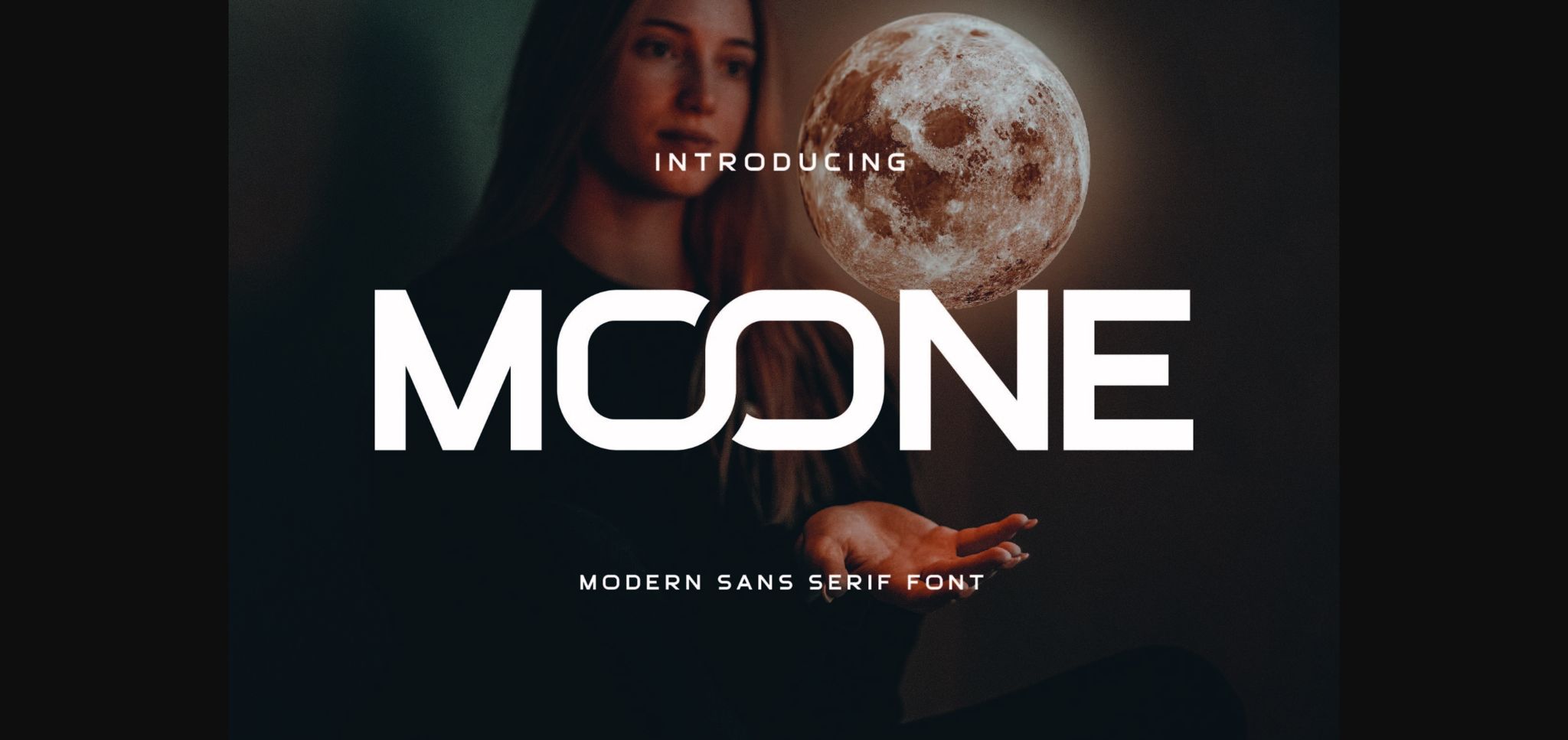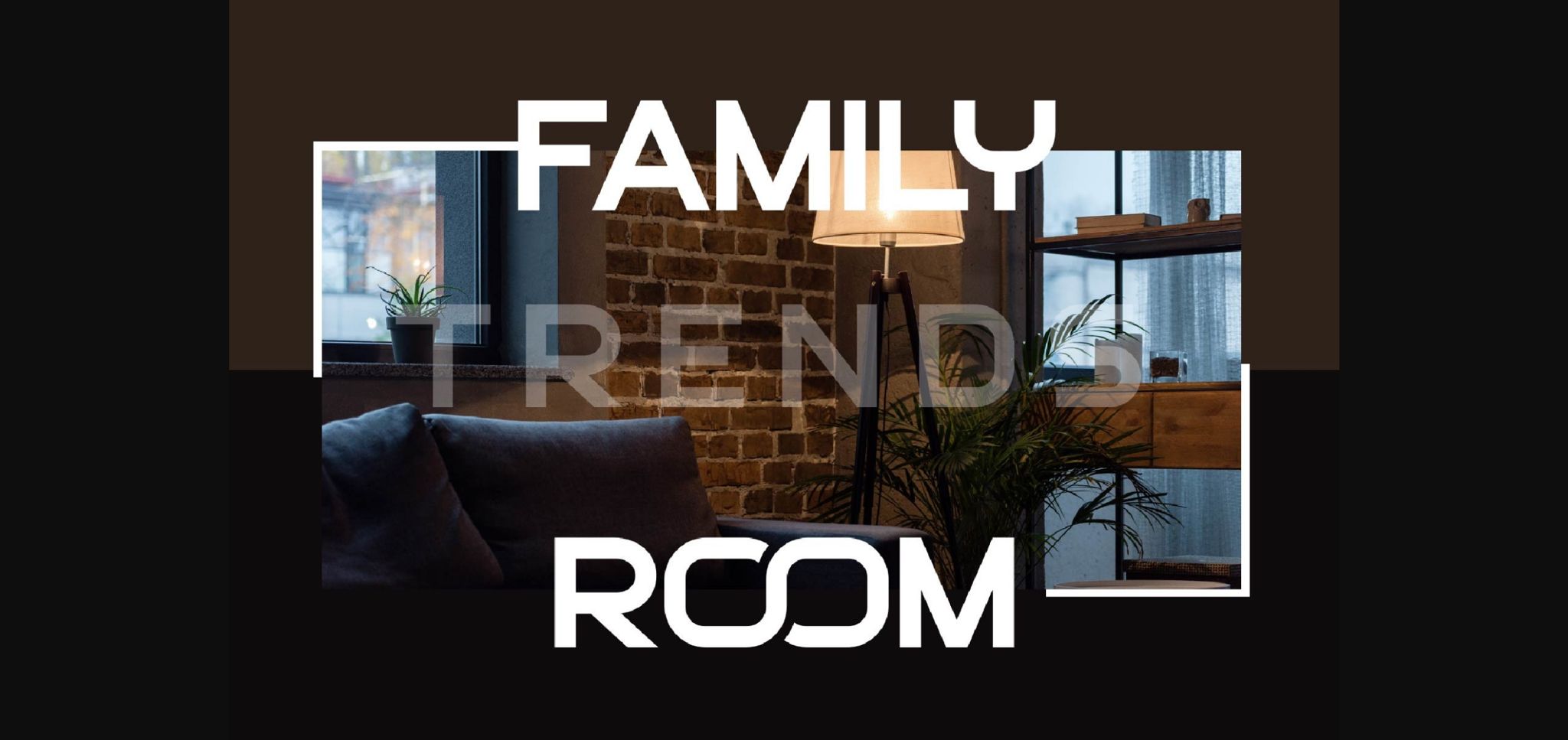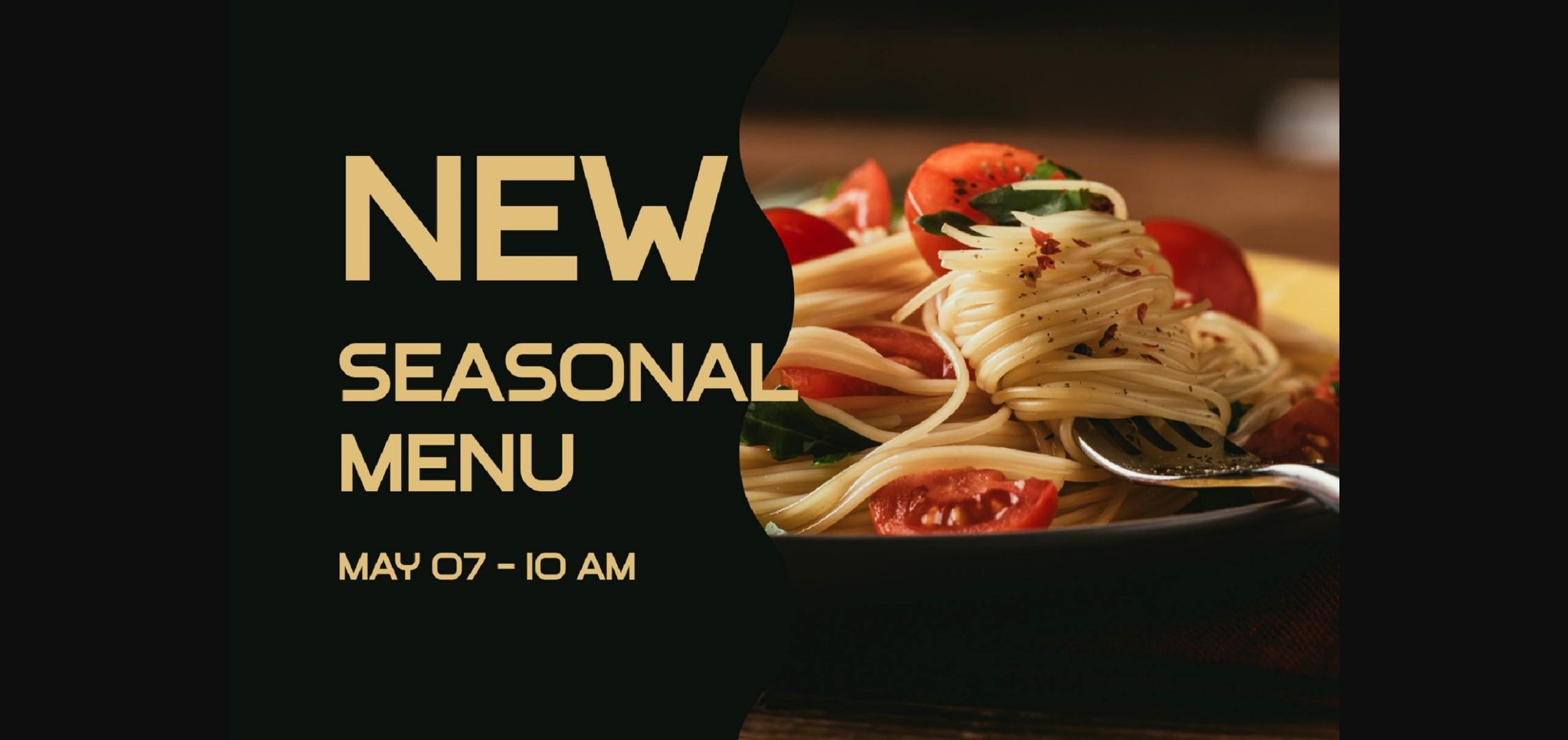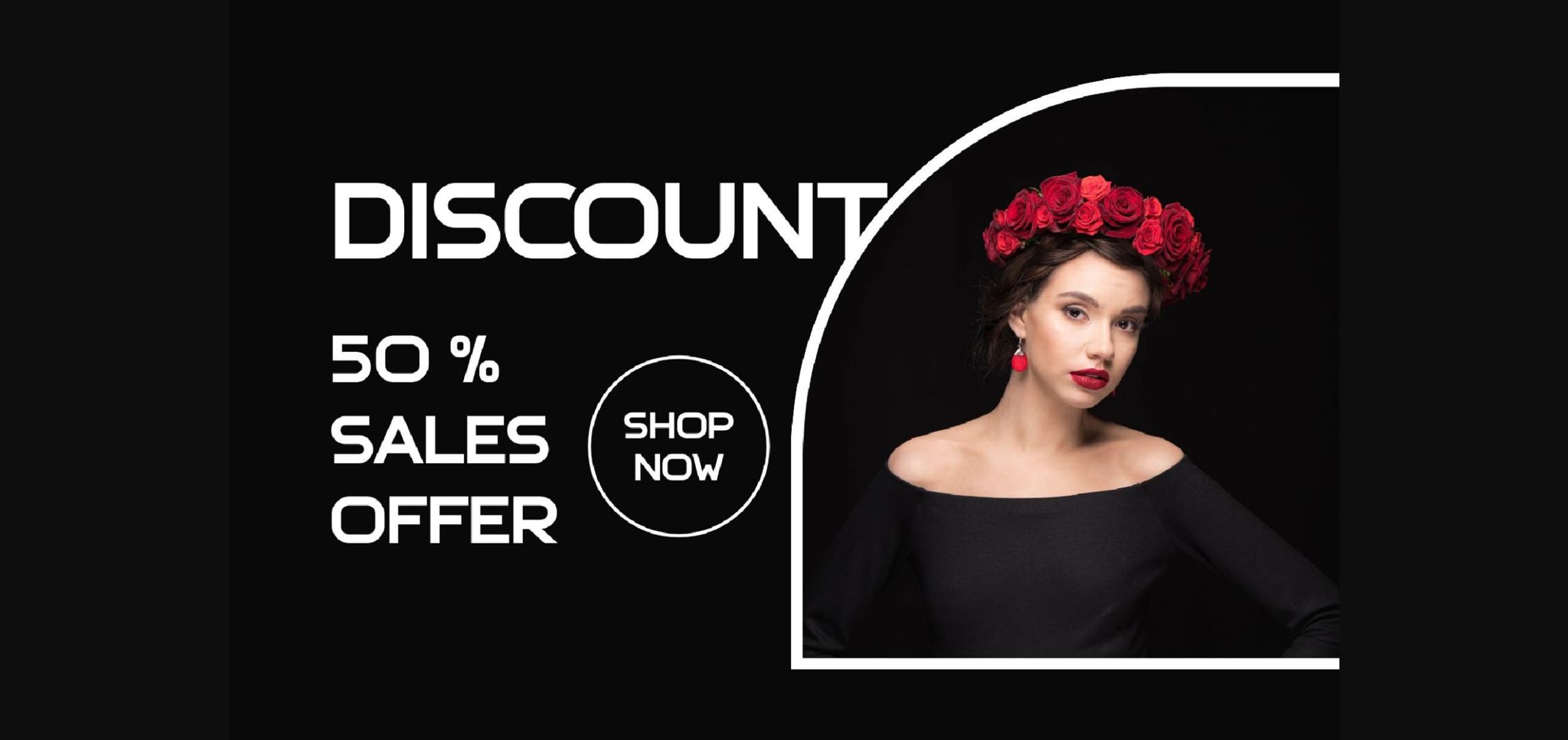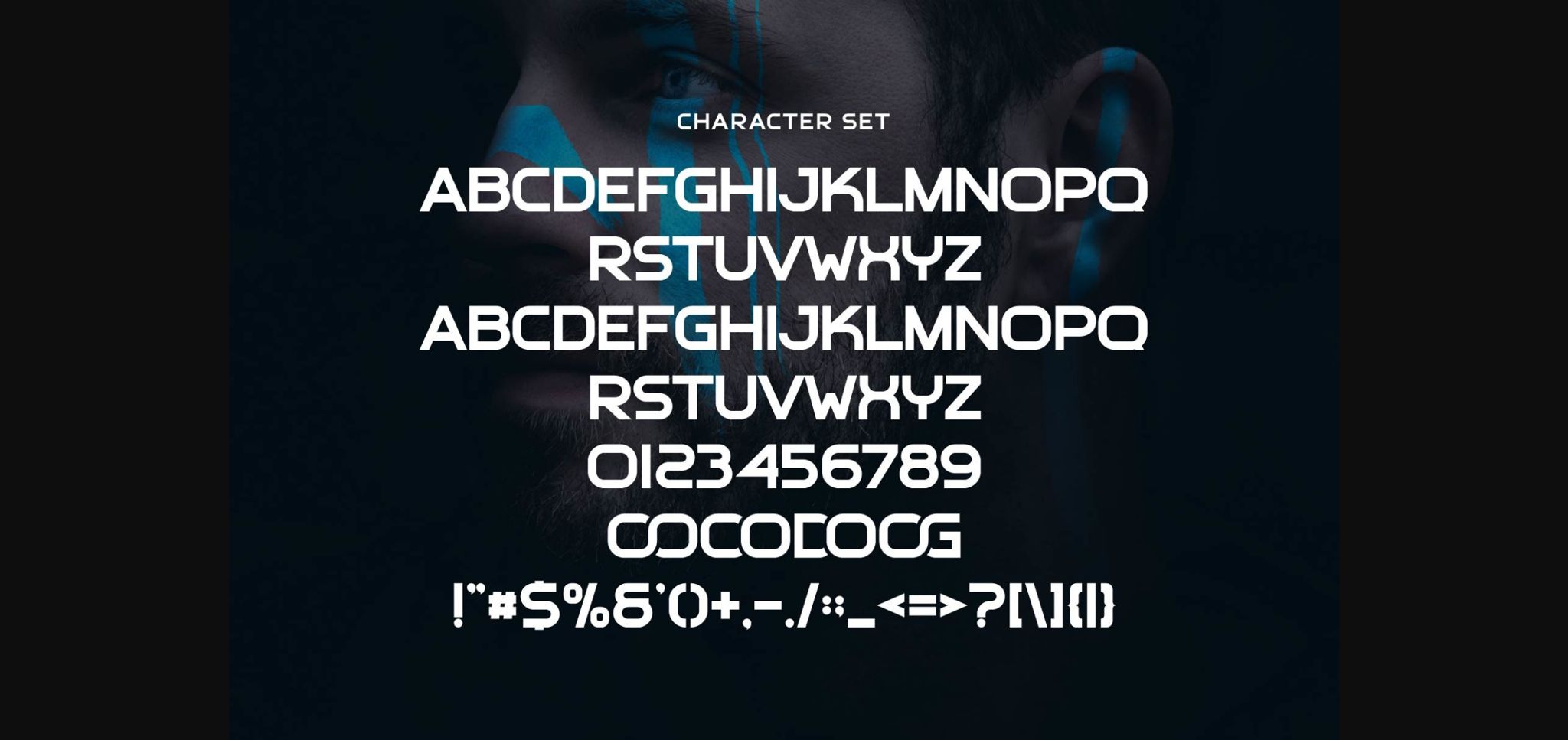
About Moone Font
Moone is a sans serif font, inspired by the famous minimalist logo perfect for the purposes of designing templates, brochures, videos, advertising branding, logos, invitation, layout design, elegant crafting, beauty design and others.